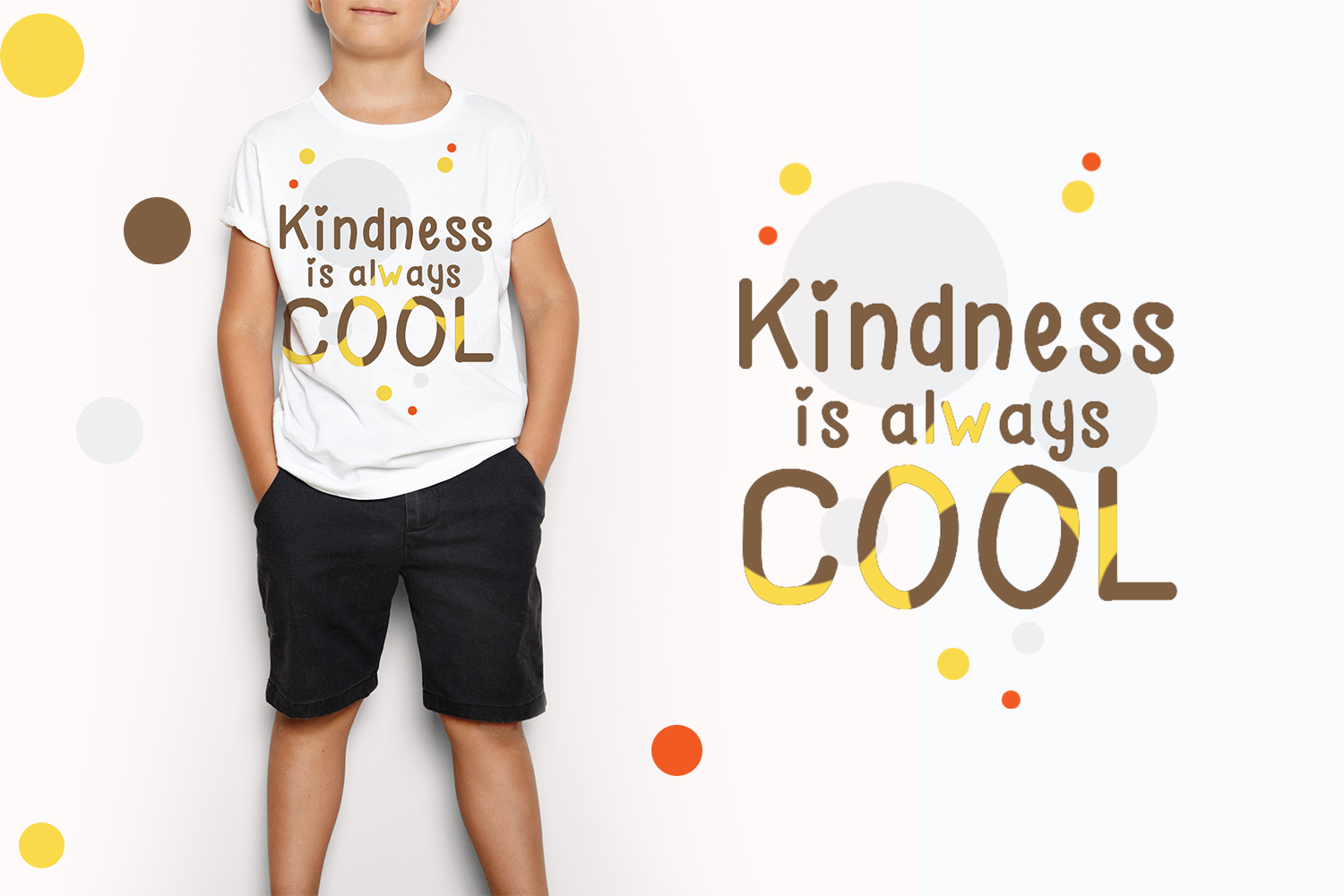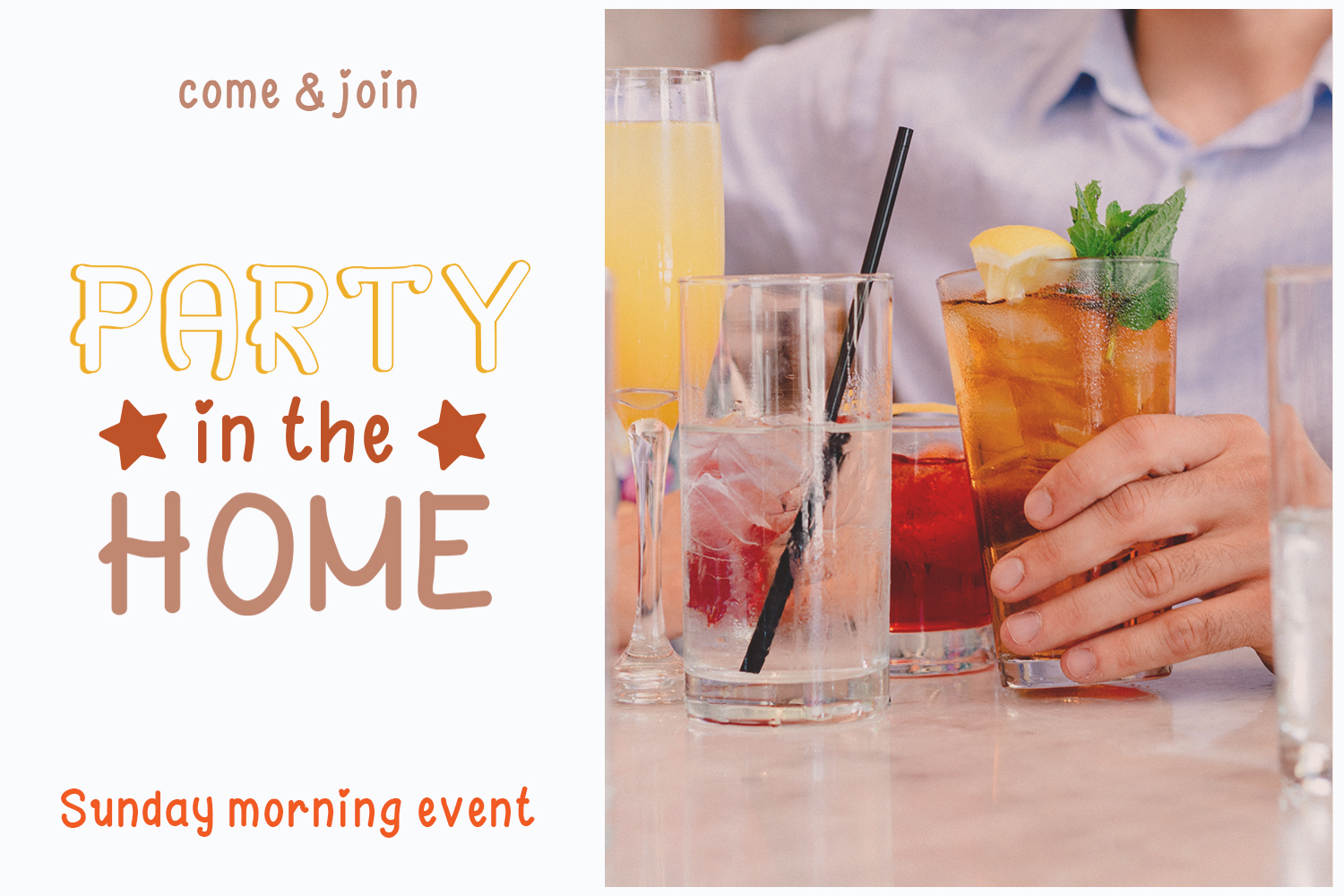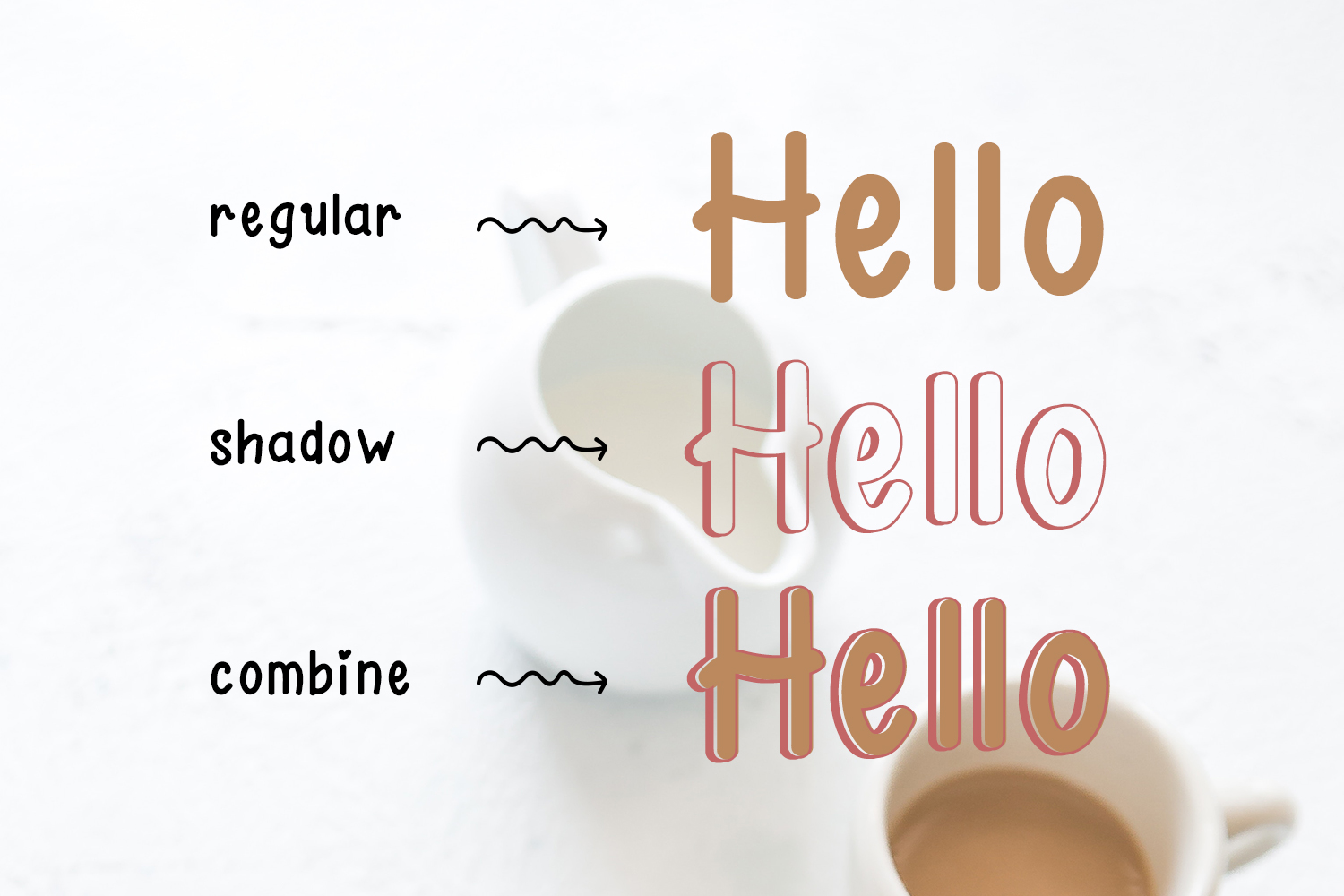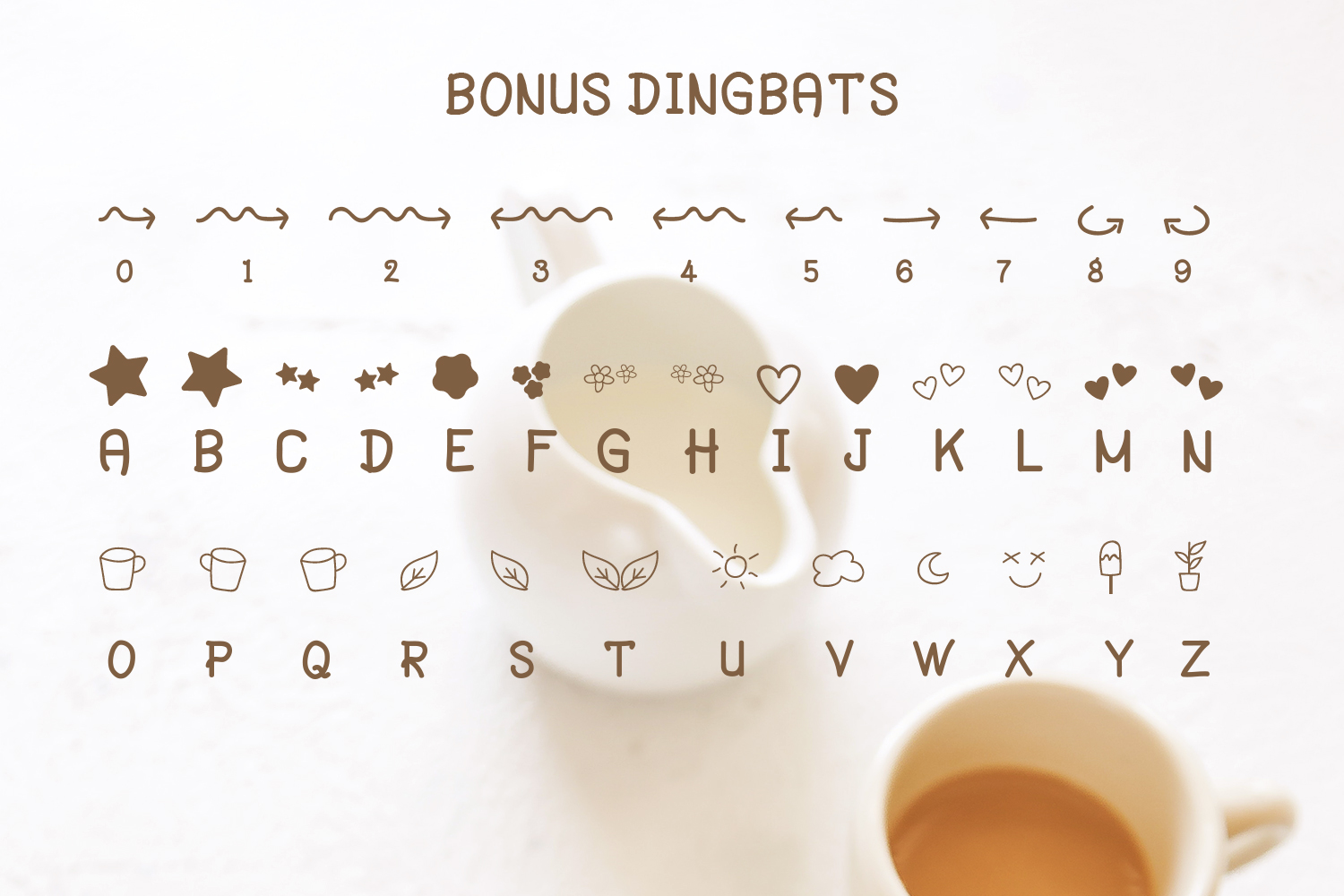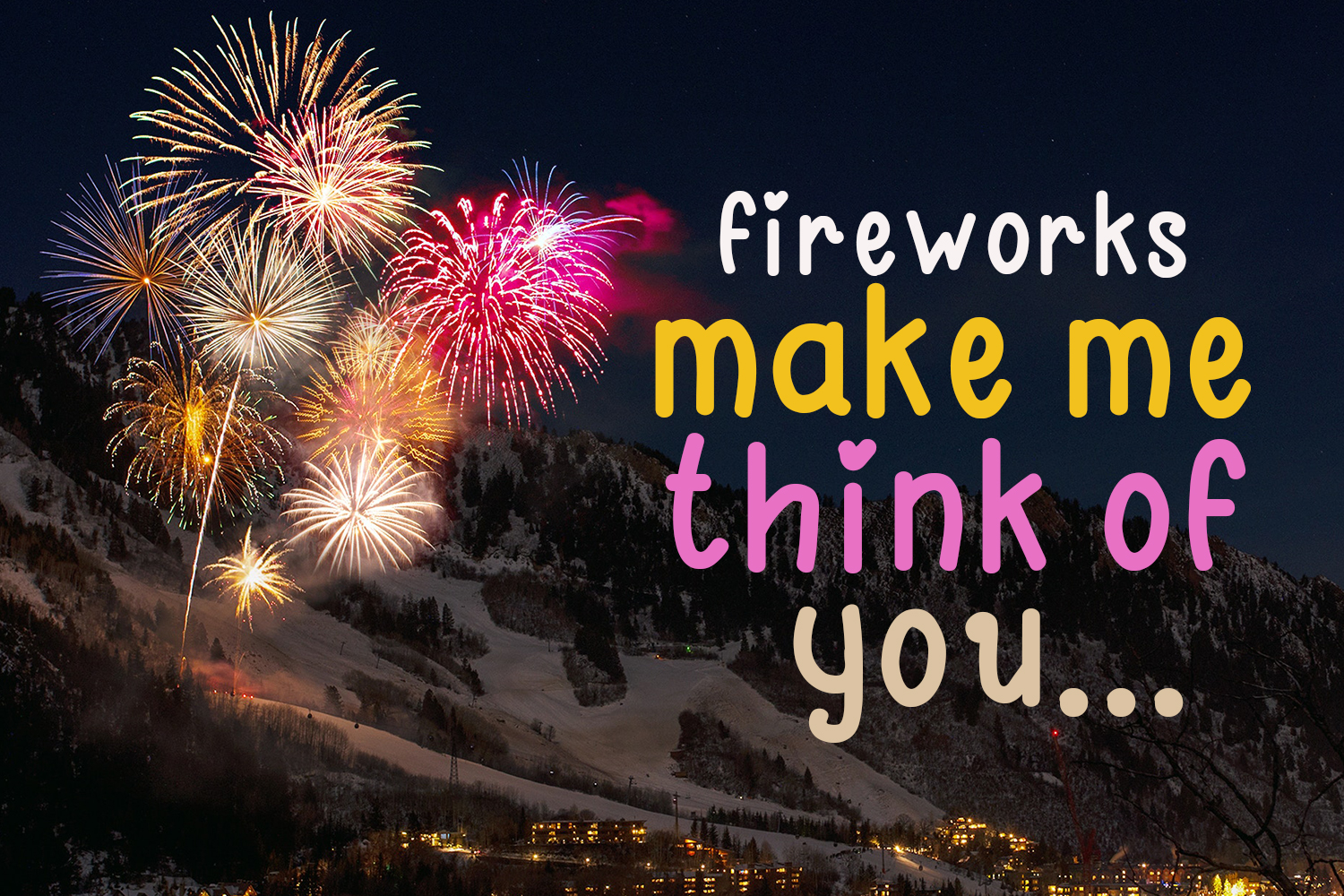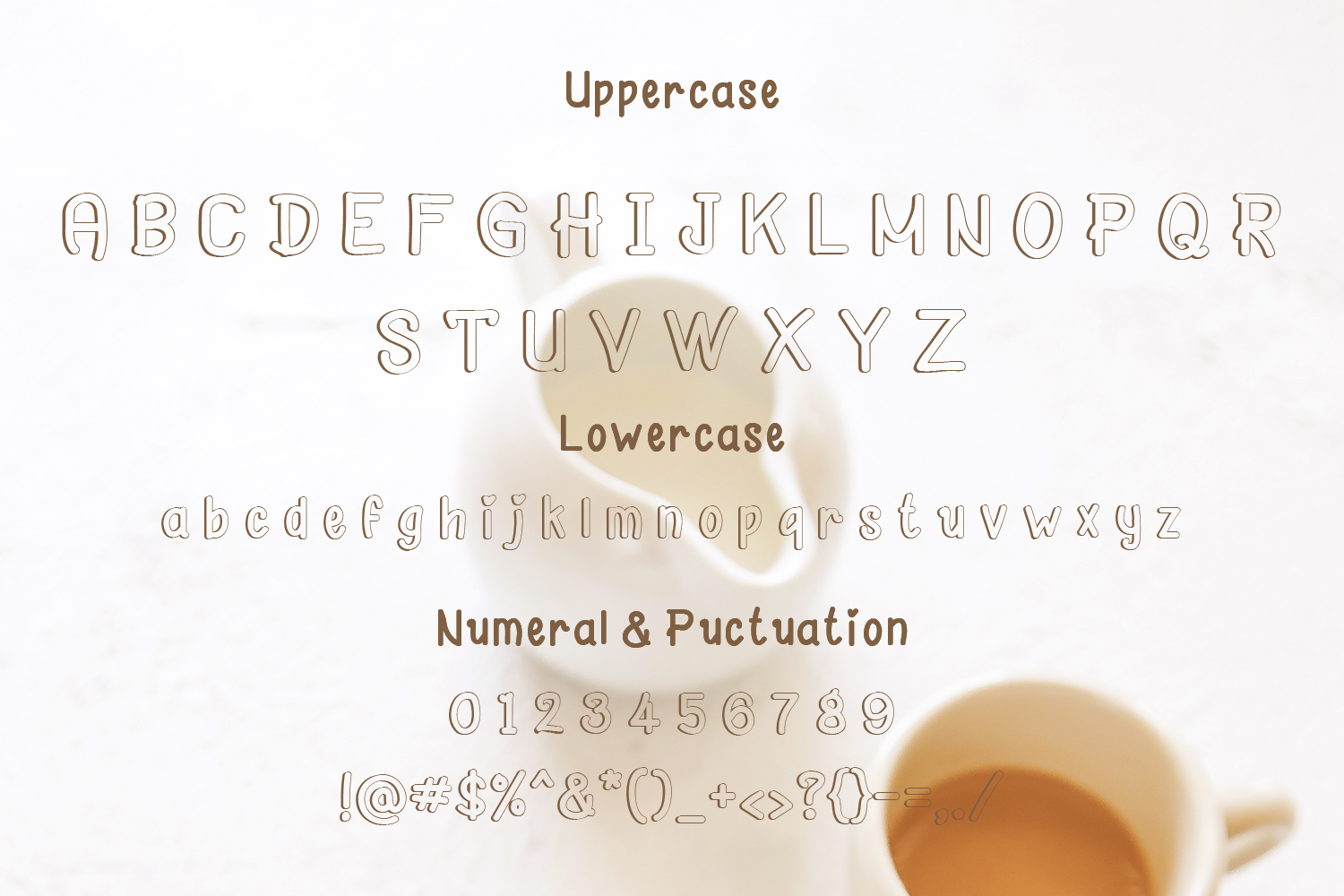
Hello Day Font: Add a Fun and Jovial Touch to Your Designs
Are you looking for a font that can add a playful and cheerful vibe to your designs? Look no further than the Hello Day Font! This adorable handwritten font is perfect for designers and crafters who want to create fun and engaging projects. In this article, we’ll dive into the features and benefits of Hello Day Font, and explore how you can use it to take your designs to the next level.
What is Hello Day Font?
Hello Day Font is a cute handwritten font that comes in a sans serif style. It’s a modern and fresh take on traditional handwritten fonts, making it perfect for designs that need a fun and jovial kick. The font is available in two styles, giving you flexibility and versatility in your designs.
Key Features of Hello Day Font
- Handwritten style: Hello Day Font has a beautiful handwritten style that’s perfect for creating personal and engaging designs.
- Sans serif style: The font’s sans serif style gives it a modern and clean look that’s perfect for designs that need a fresh feel.
- Two font styles: Hello Day Font comes in two styles, allowing you to experiment with different looks and feels in your designs.
- Fun dingbats: The font also includes a set of fun dingbats that you can use to add extra visual interest to your designs.
- Layering capabilities: You can layer the fonts to create a cool and unique design that’s sure to stand out.
Who is Hello Day Font Suitable for?
Hello Day Font is suitable for any project that needs a fun and jovial style kick. It’s perfect for designers and crafters who work on projects such as:
- Children’s products: Hello Day Font is perfect for designing children’s books, toys, and other products that require a fun and playful font.
- Greeting cards and invitations: The font’s friendly and approachable style makes it perfect for designing greeting cards and invitations.
- Branding and packaging: Hello Day Font can add a fun and modern touch to branding and packaging designs.
- Social media graphics: The font’s playful style is perfect for creating engaging social media graphics.
Tips for Using Hello Day Font
Here are some tips for getting the most out of Hello Day Font:
- Experiment with layering: Don’t be afraid to experiment with layering the fonts to create a unique and eye-catching design.
- Use the dingbats: The fun dingbats that come with Hello Day Font are perfect for adding extra visual interest to your designs.
- Mix and match: Try mixing and matching the two font styles to create a unique and interesting look.
- Keep it simple: Don’t overcomplicate your design. Hello Day Font is perfect for simple and clean designs that need a fun and jovial touch.
Hello Day Font is a fun and versatile font that’s perfect for designers and crafters who want to add a playful touch to their designs. With its handwritten style, sans serif look, and fun dingbats, it’s the perfect font for projects that need a fun and jovial style kick. Whether you’re designing children’s products, greeting cards, or social media graphics, Hello Day Font is sure to bring a smile to your audience’s face.